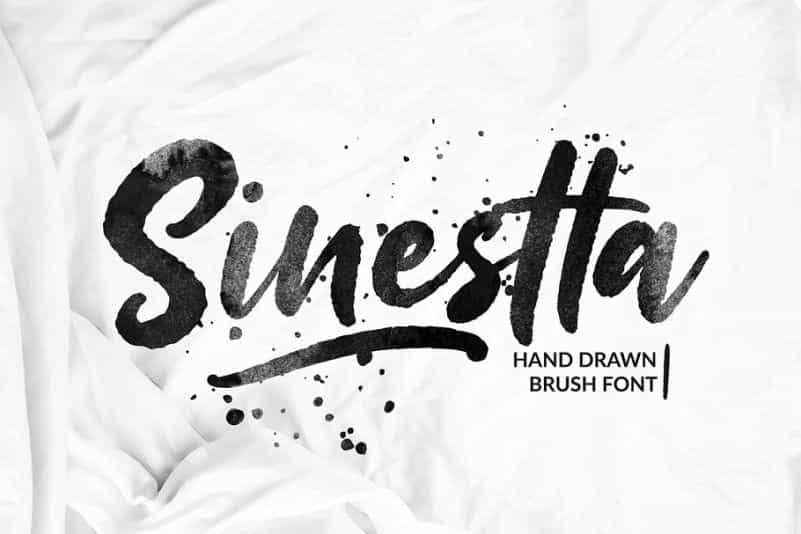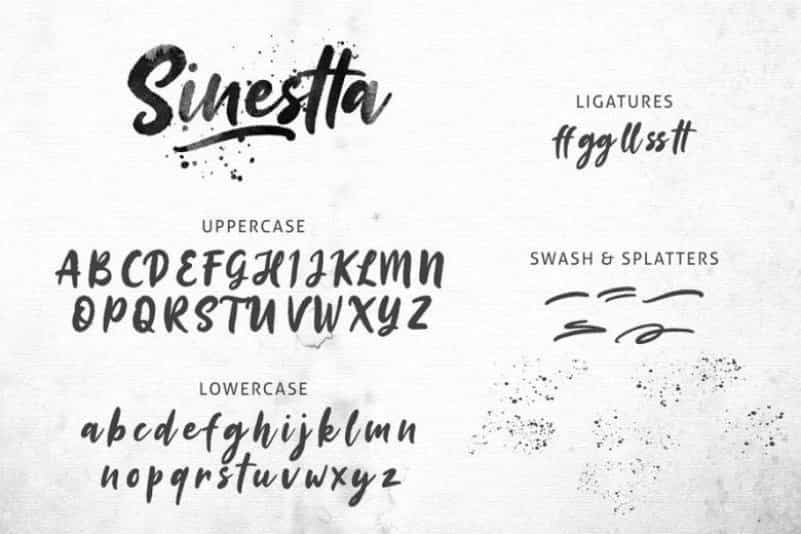
Introducing Sinestta Brush Font. Sinestta is designed and shared by Weape Design. Sinestta Handwritten Brush Font, script with natural dry brush strokes make it beautiful, and the stroke of hand quickly. With swash and splatter, you can make it as if you wrote it yourself.